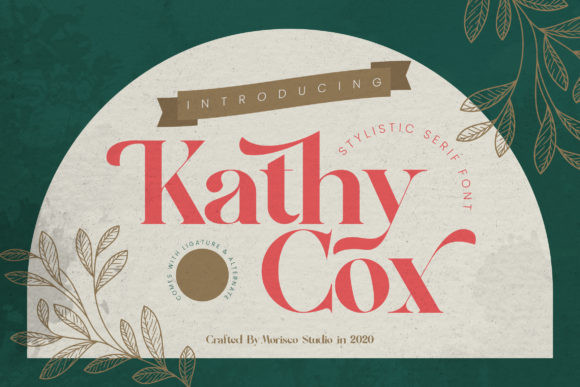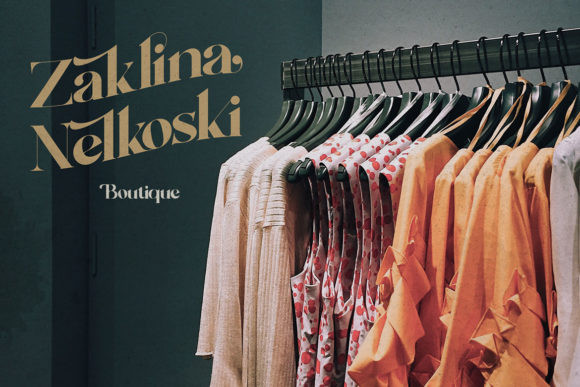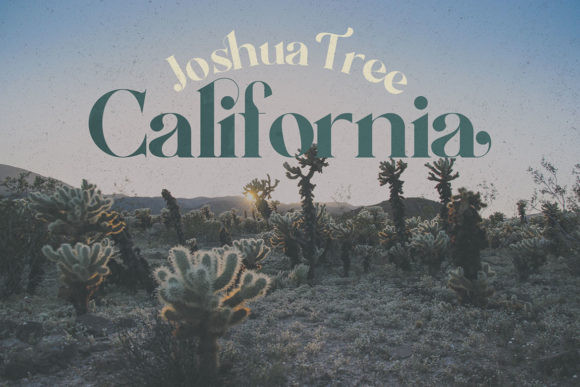
Kathy Cox Font
Kathy Cox is an elegant an authentic serif font. Bold and classic, this font will level up each of your creations. It can be used for various purposes such as logos, wedding invitations, headings, t-shirts, letterhead, signage, labels, news, posters, badges and so much more.